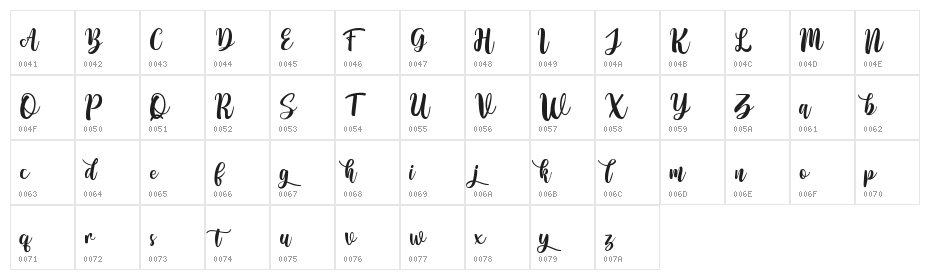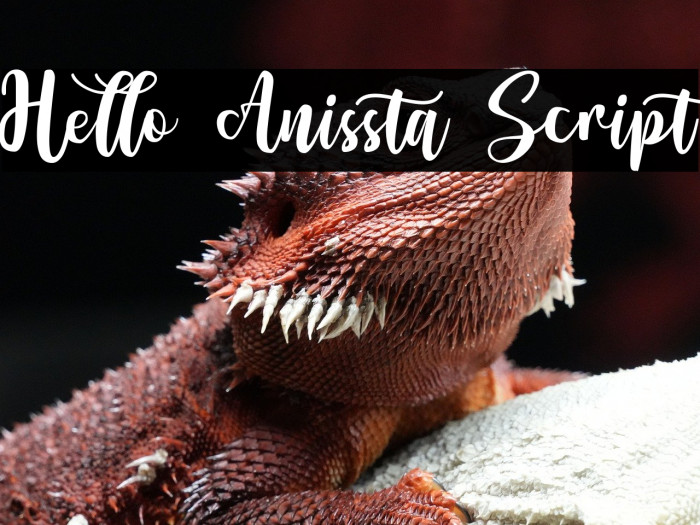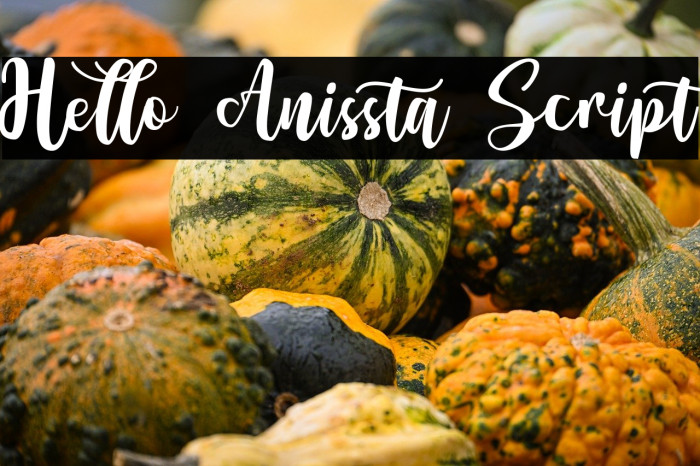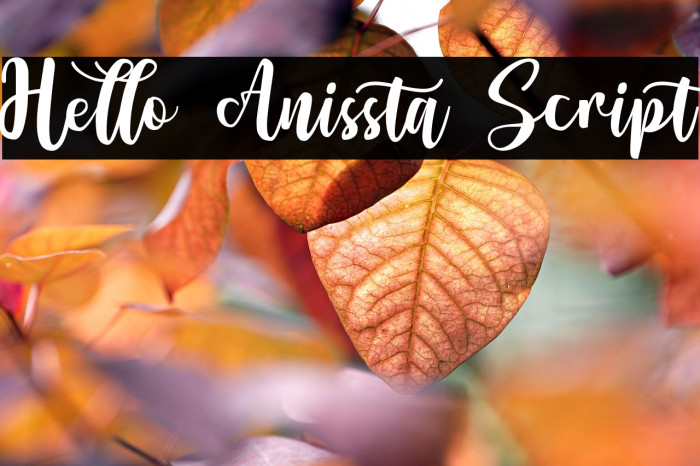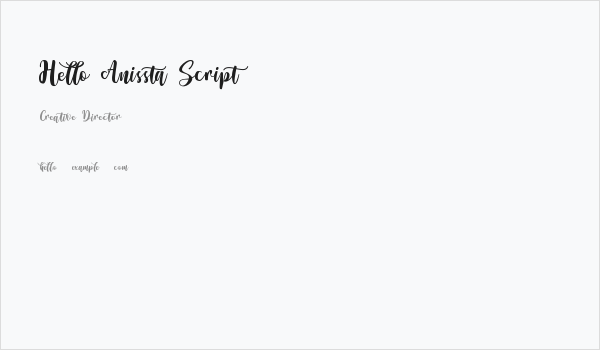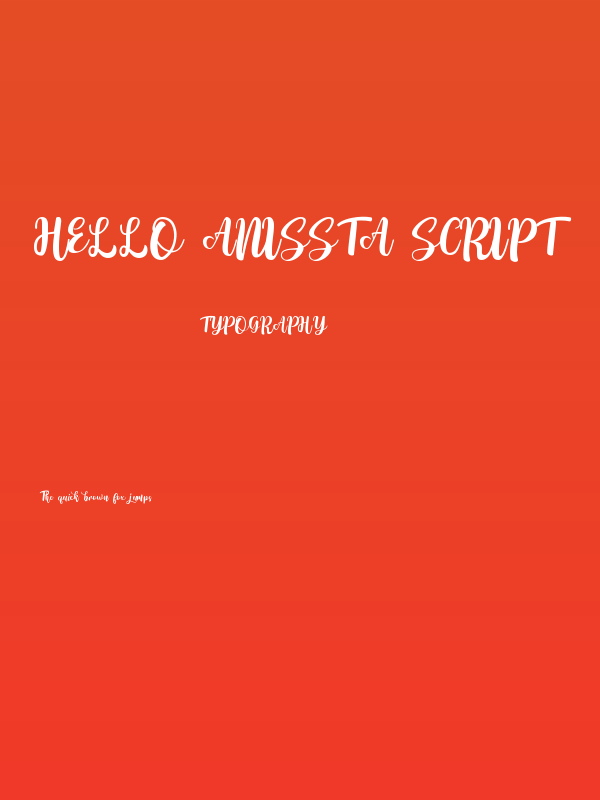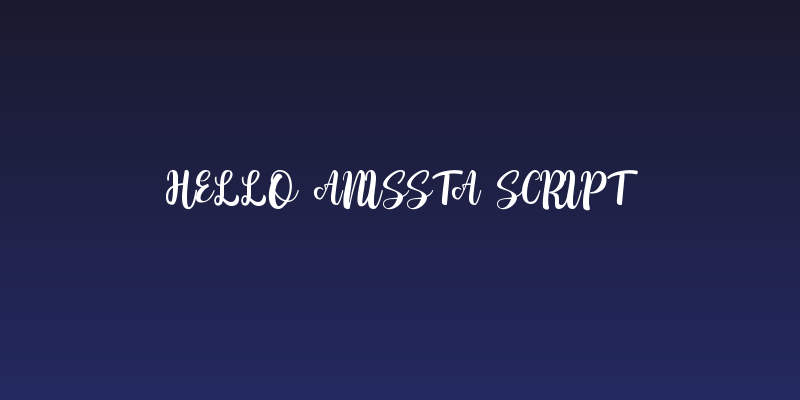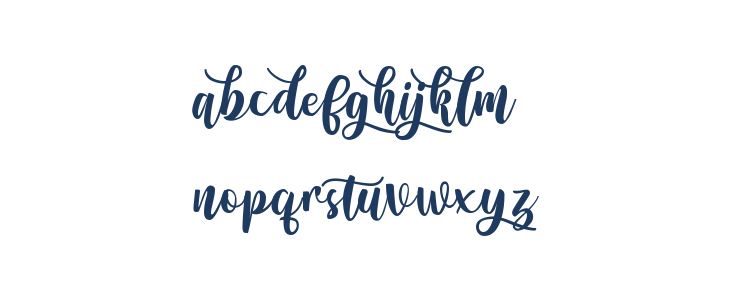
Hello Anissta Script Font
Hello Anissta Script Description
This font features a flowing, cursive script style with elegant, sweeping curves and a hand-drawn appearance. The uppercase letters are bold and prominent, with decorative flourishes that add a touch of sophistication. The lowercase letters maintain a consistent style, with smooth connections between characters, enhancing the script's fluidity. The overall design is both playful and refined, making it suitable for a variety of creative applications. The font's artistic flair is evident in its unique letterforms, which convey a sense of movement and grace.
| Use Case | Logos, Headlines, Invitations |
| Proposed Projects | Ideal for wedding invitations, greeting cards, branding, and logo design. |